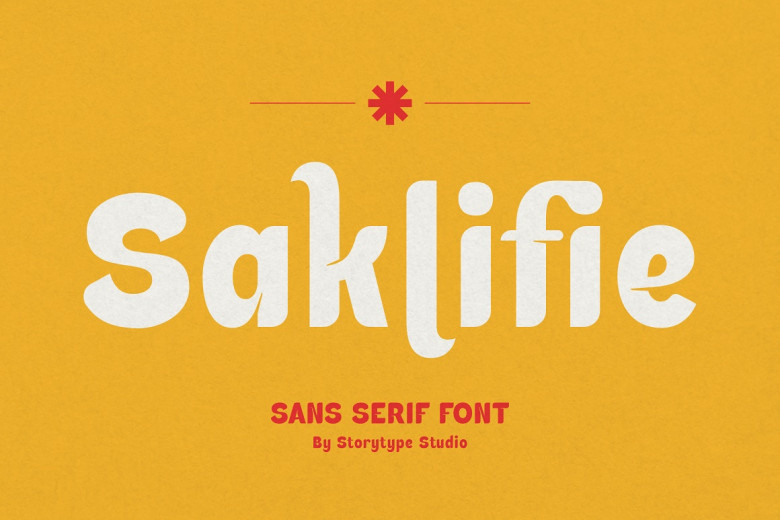
Saklifie Font
Saklifie  is a modern and classic san serif font that has own unique style & modern look. This typeface is perfect for an elegant & luxury logo, book or movie title design, fashion brand, magazine, clothes, lettering, quotes, and so much more.
Saklifie Sans Serif Font